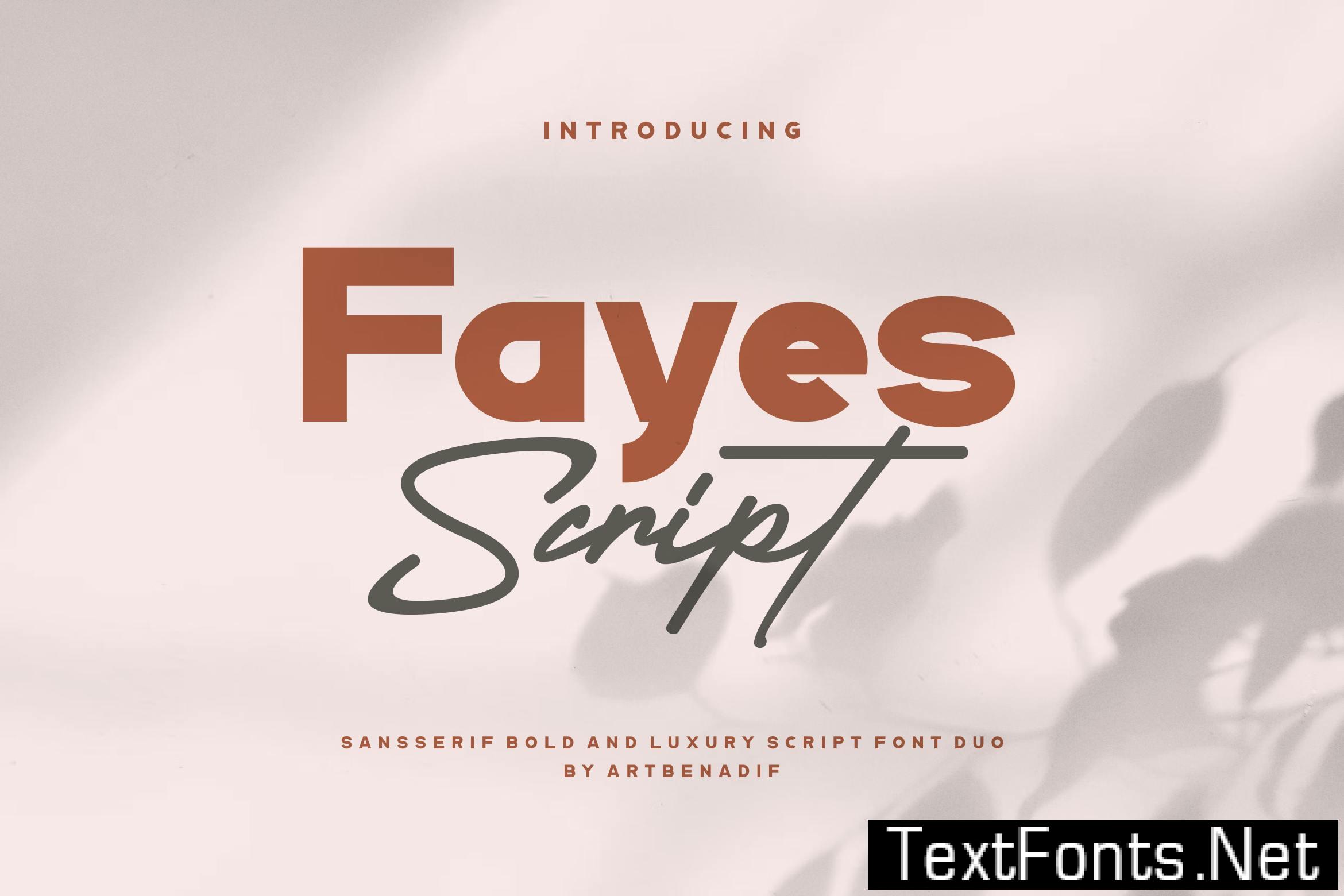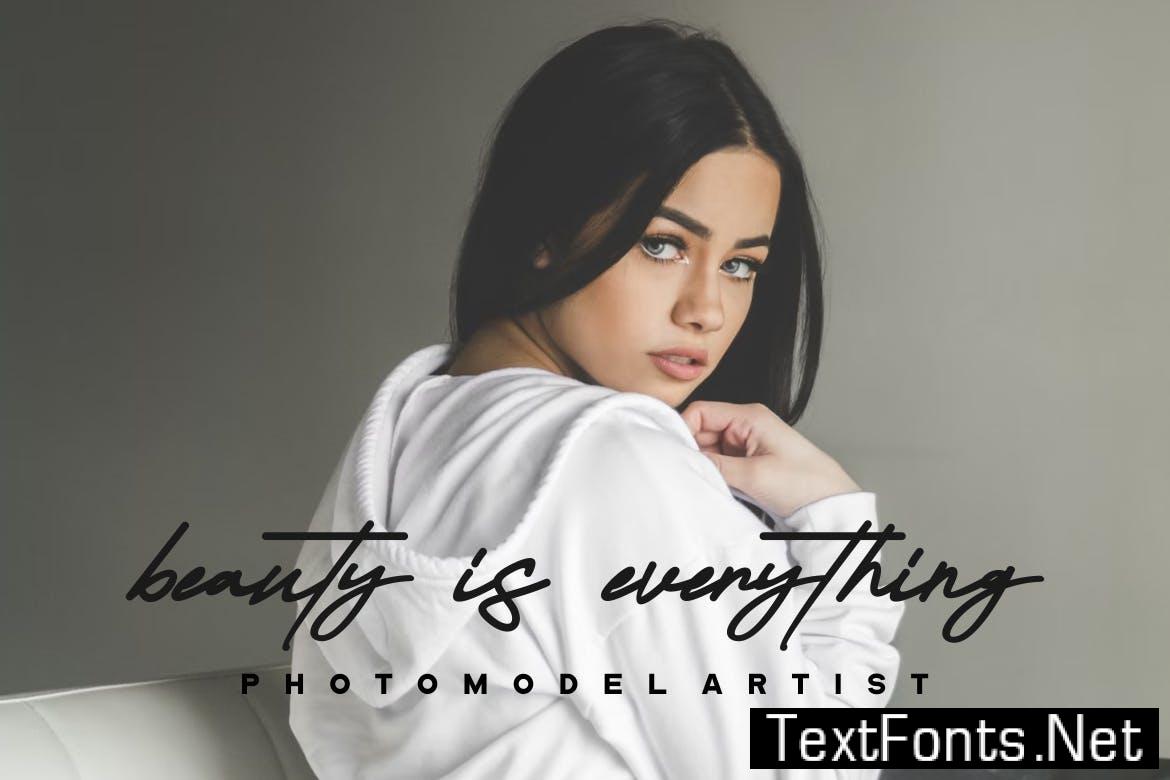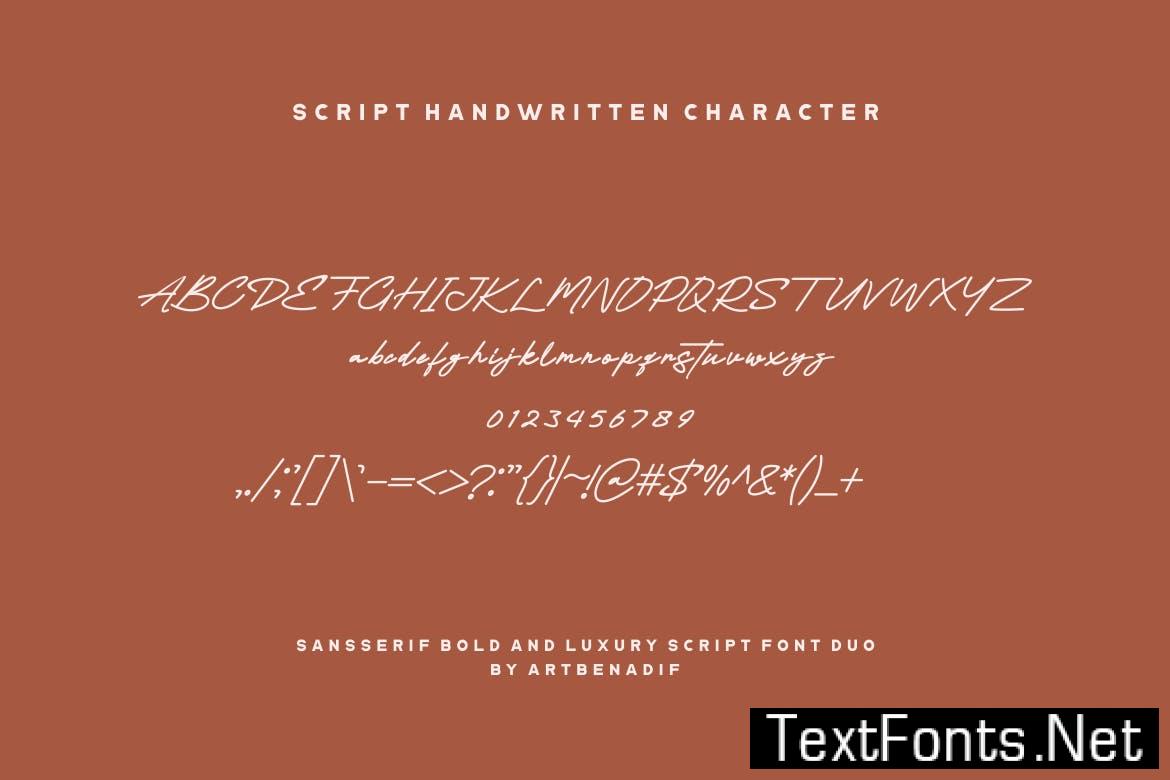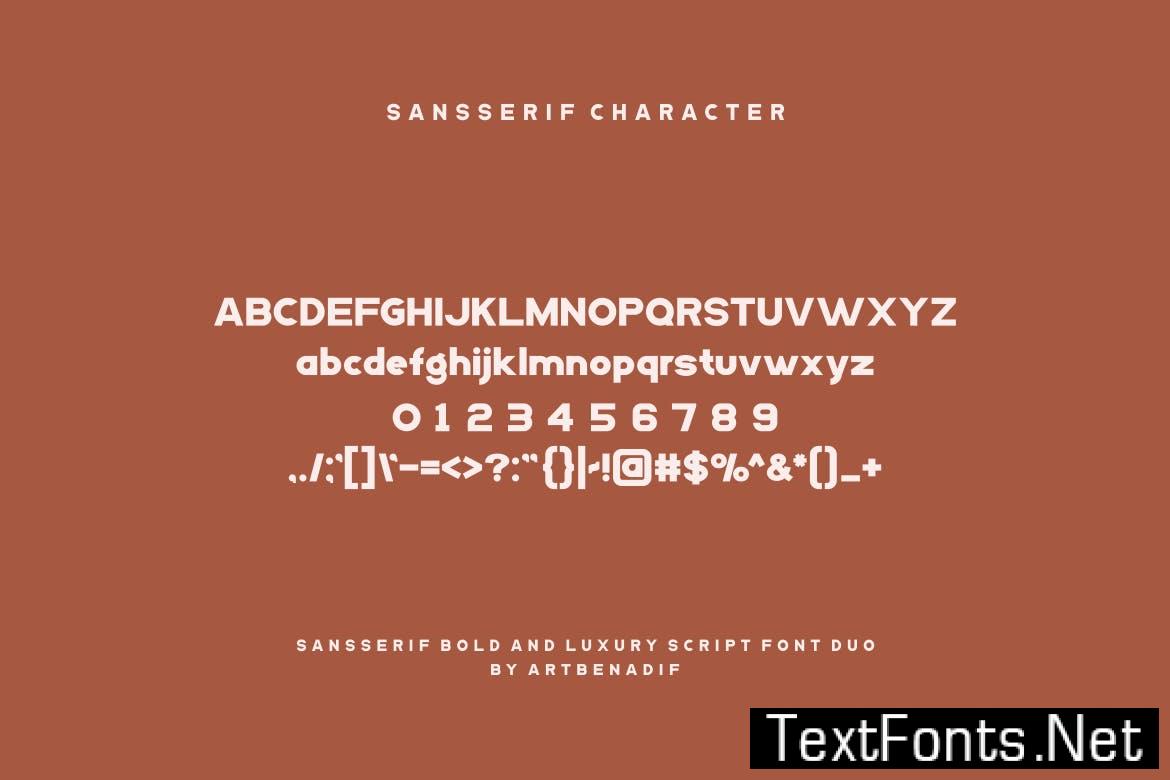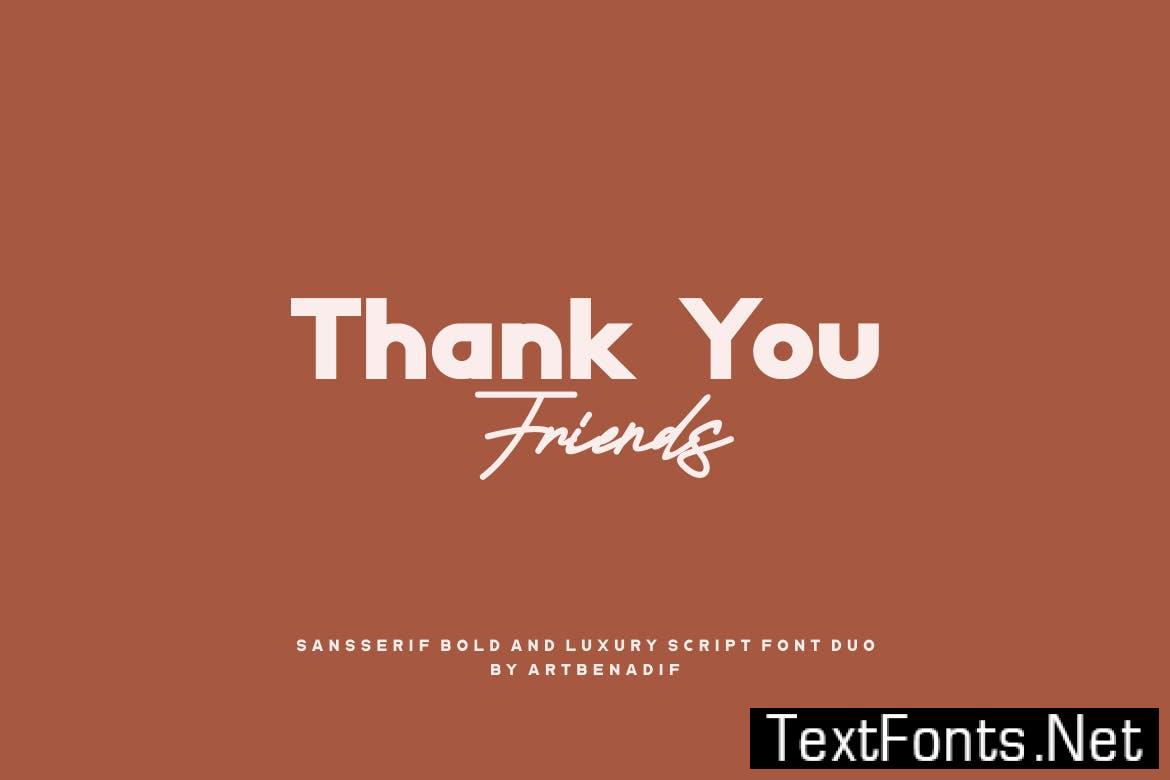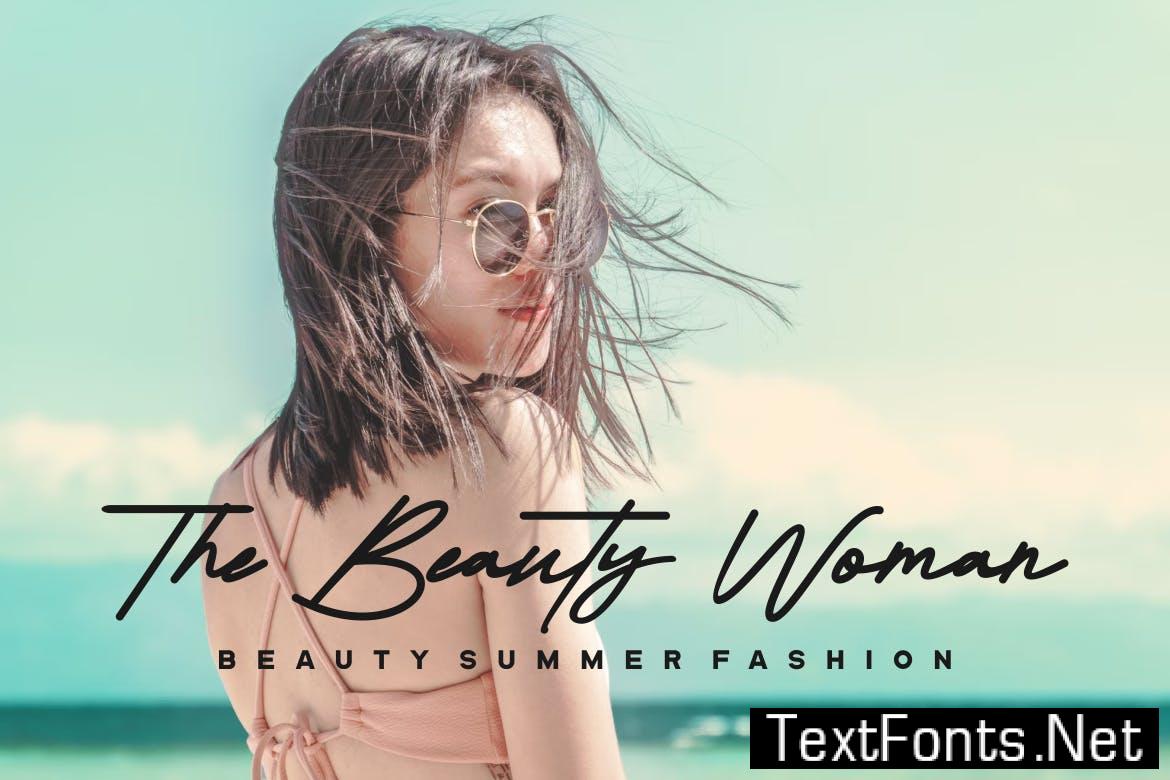
Fayes Script – Sansserif And Luxury Script Font VWYCDSN
Introducing our new product **Fayes Script** Sansserif And Luxury Script Font
**Fayes Script** Modern Font is a bold and Script display font. The font is suitable for any branding project like logo, t-shirt printing, esport, and many more.
outstanding in a wide range of contexts.